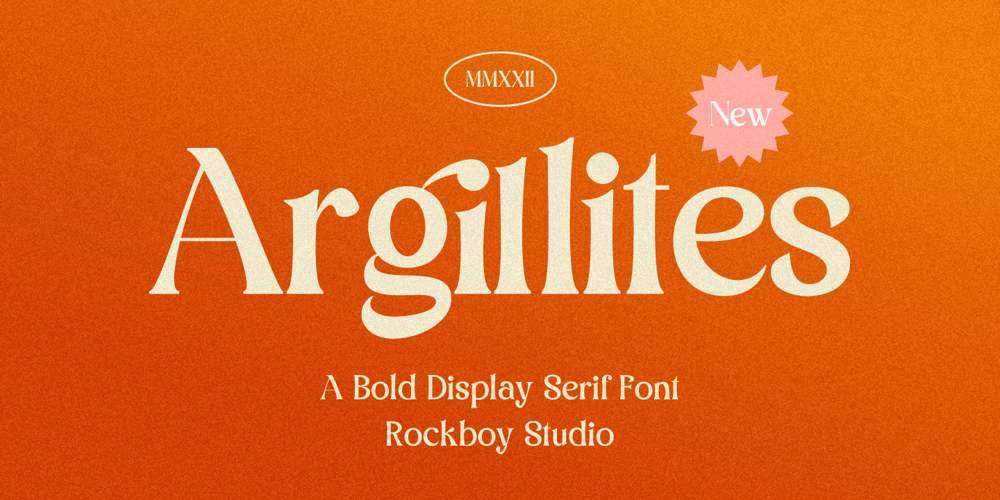
Argillites Font Family was designed by Hayinah and published by Rockboys Studio. Argillites contains 1 styles and family package options. Argillites is a bold serif font, carefully handcrafted to become a true favorite. Its casual charm makes it appear wonderfully down-to-earth, readable, and, ultimately, incredibly versatile.